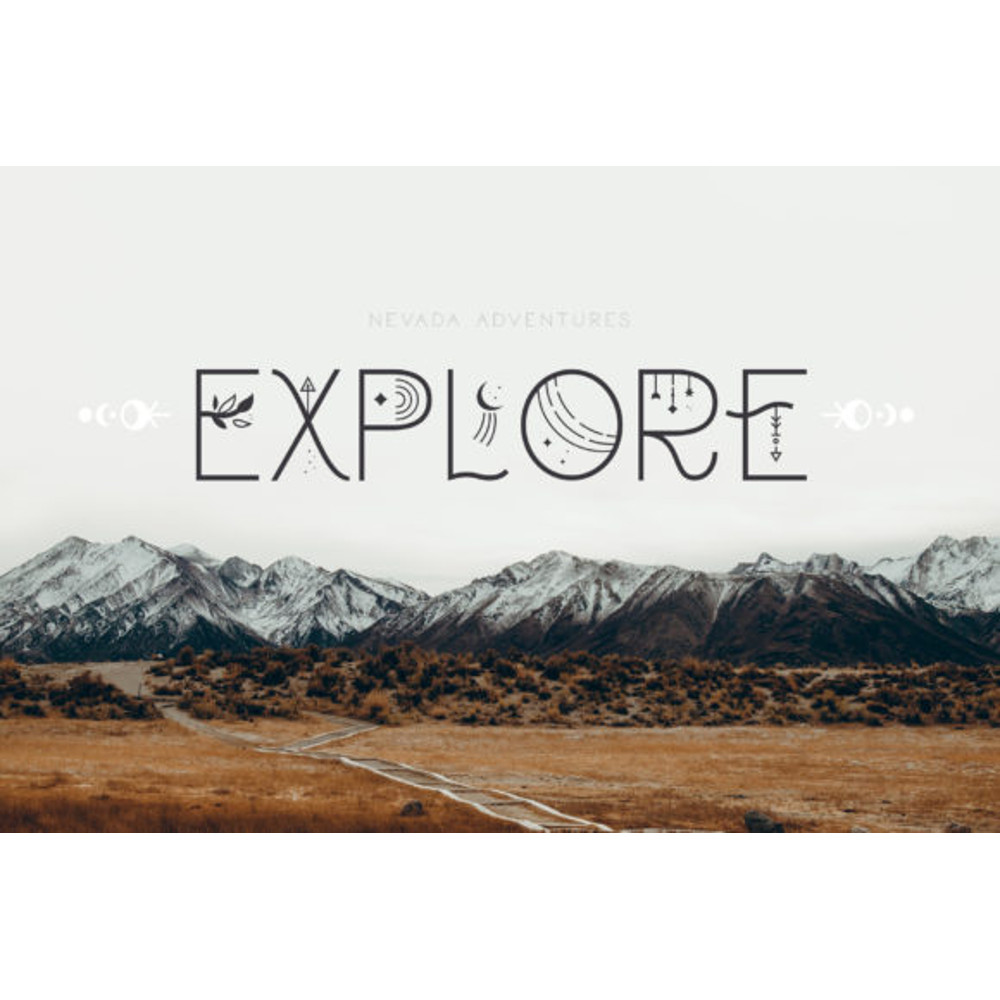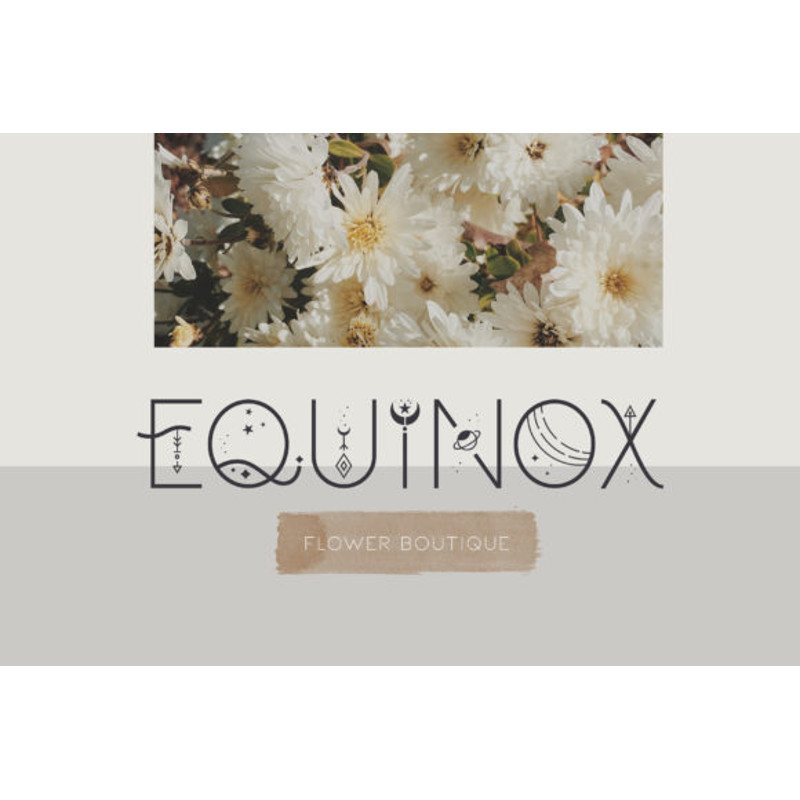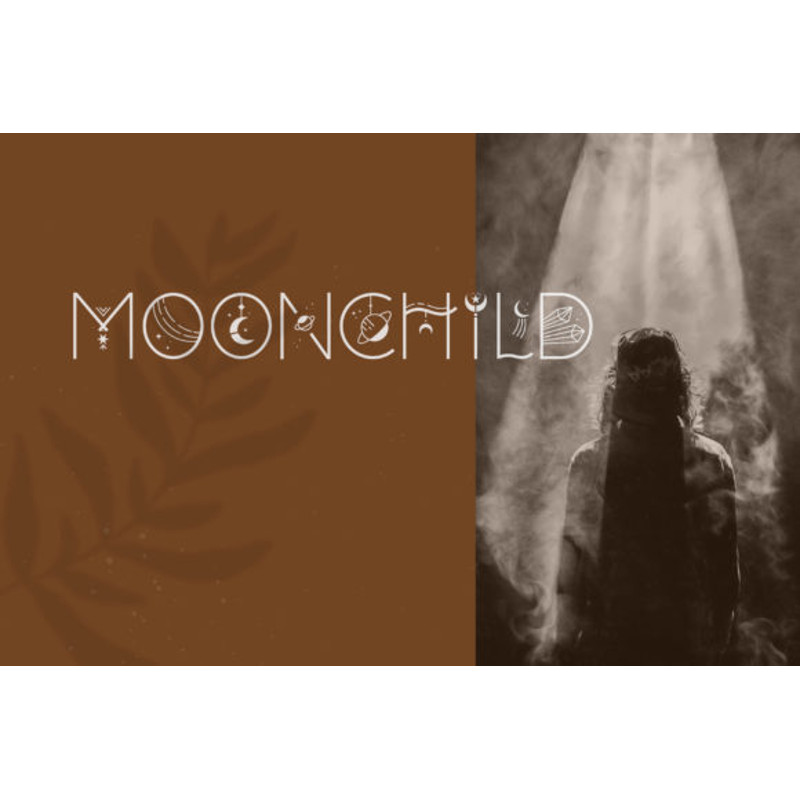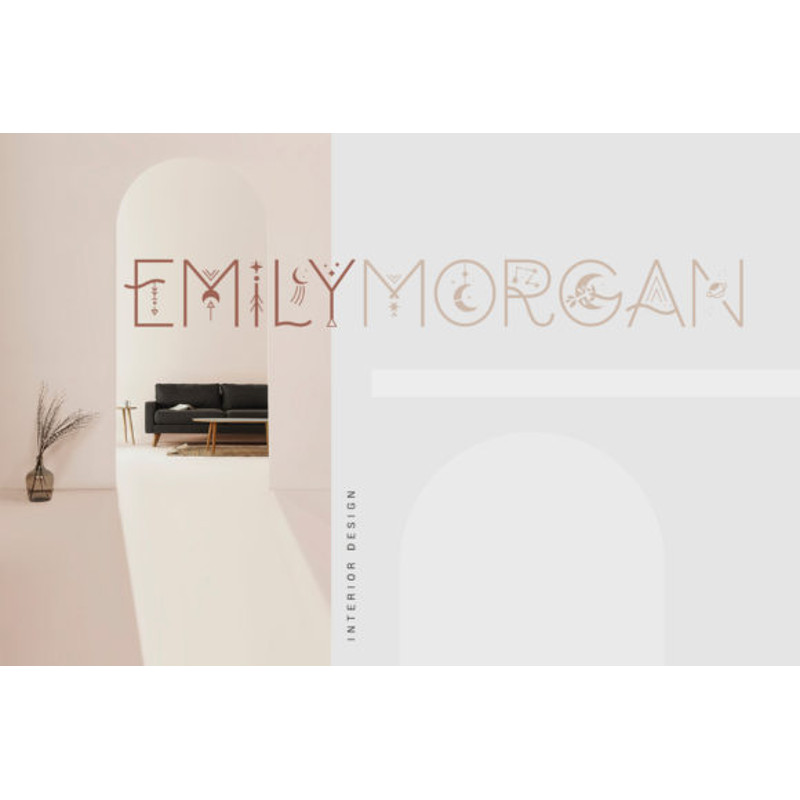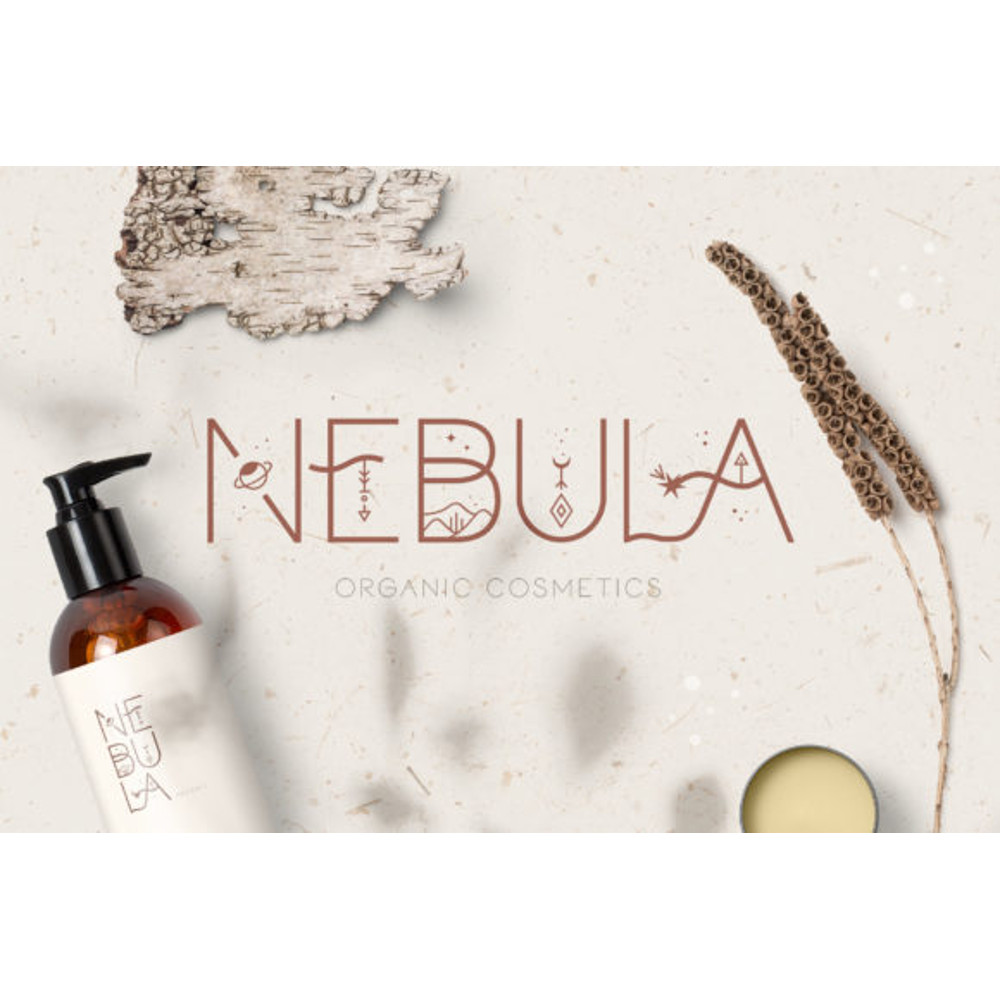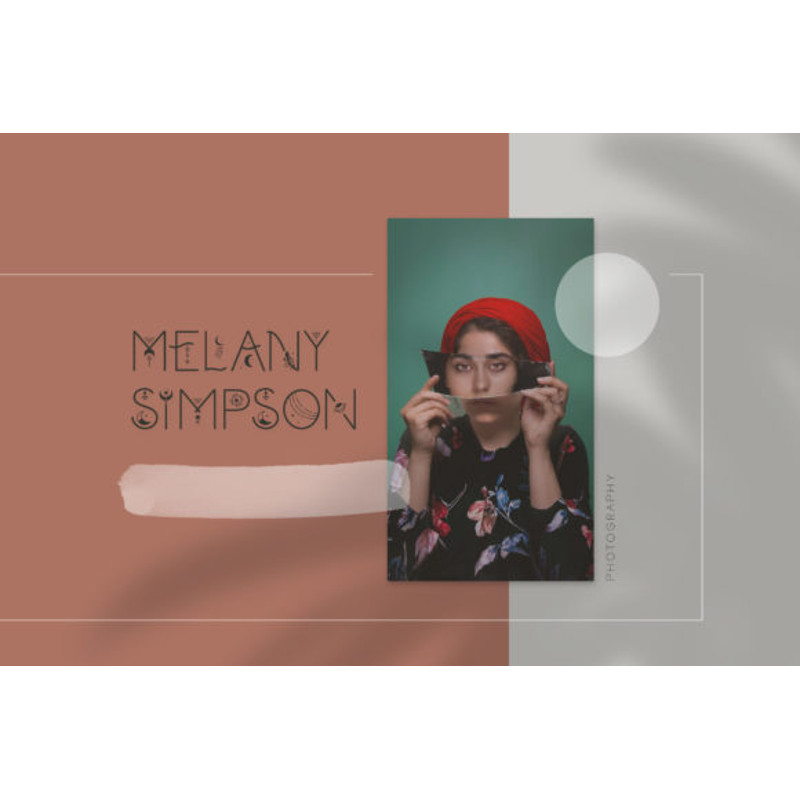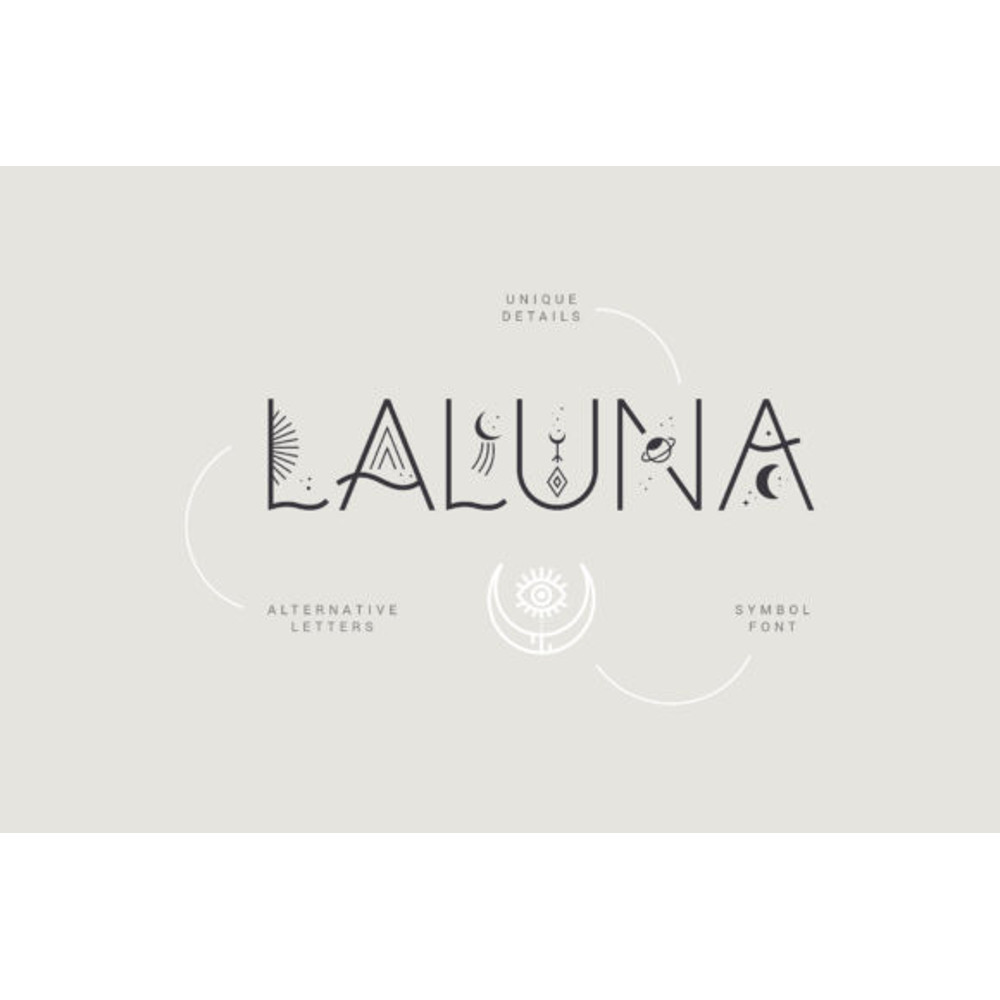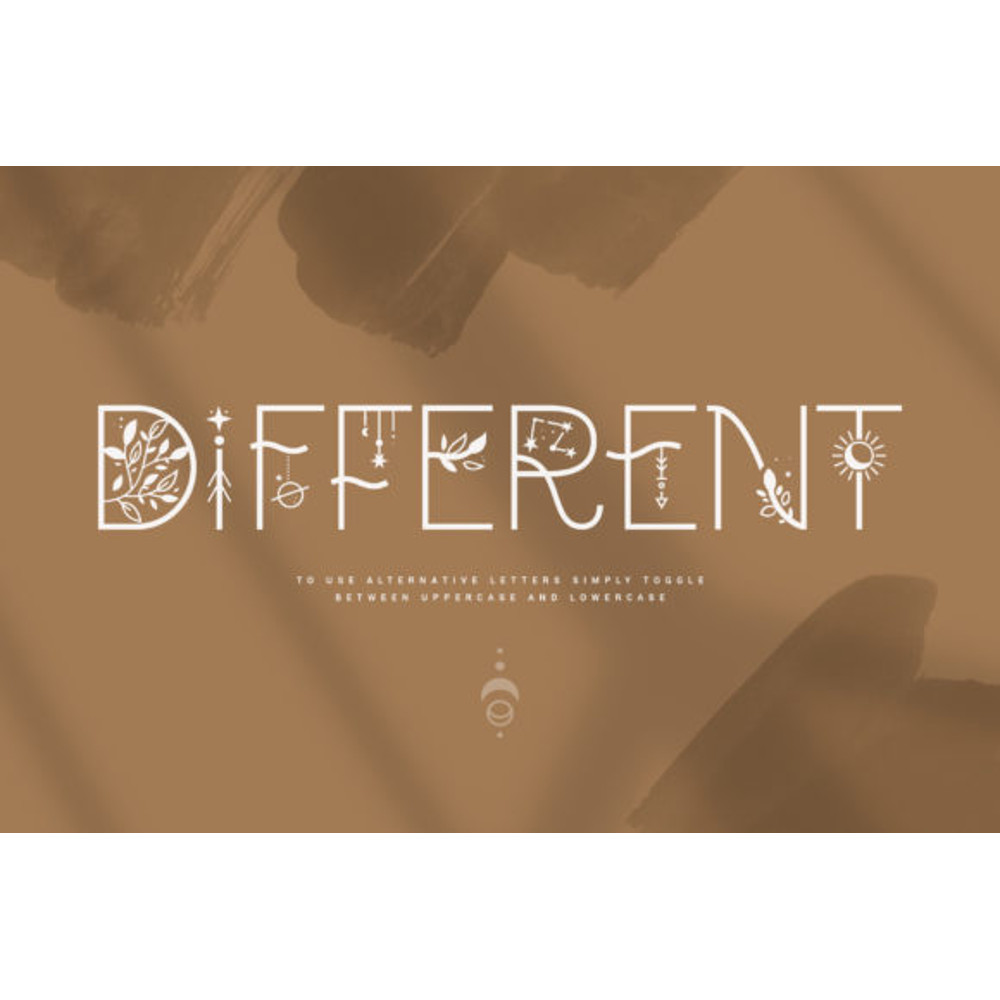
Celestial Font
Celestial is a splendid font family (decorative, sans serif, and dingbats), suitable for any creative project you have in mind! It is inspired by celestial motifs, boho styles, mystery, and astrology. It will truly elevate the look of any item!